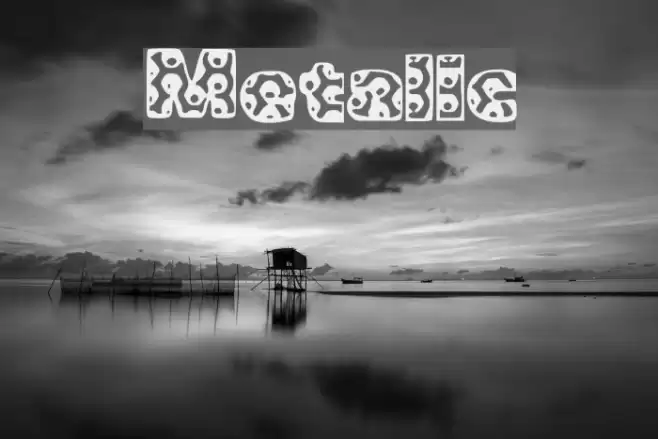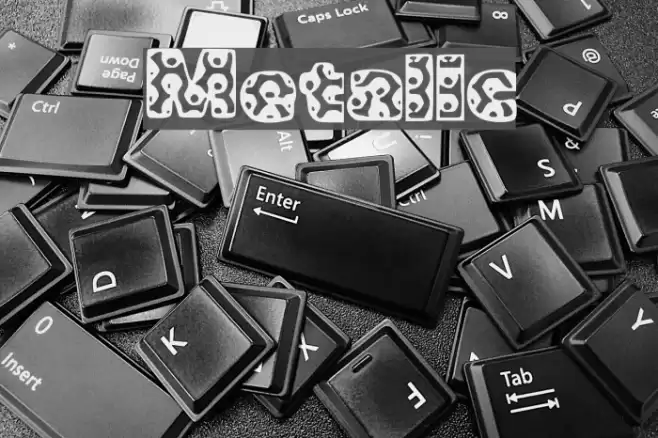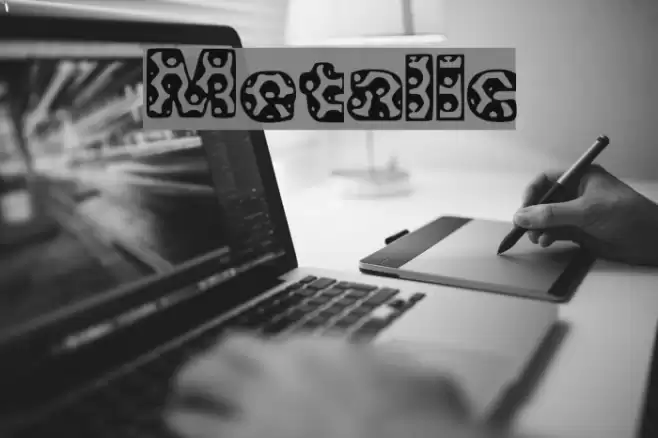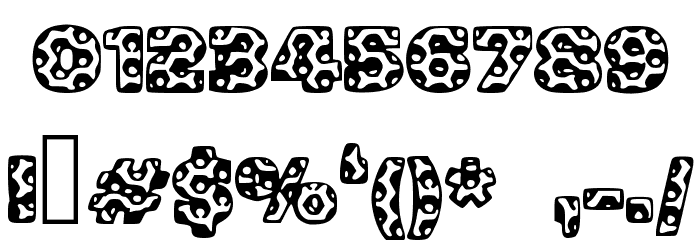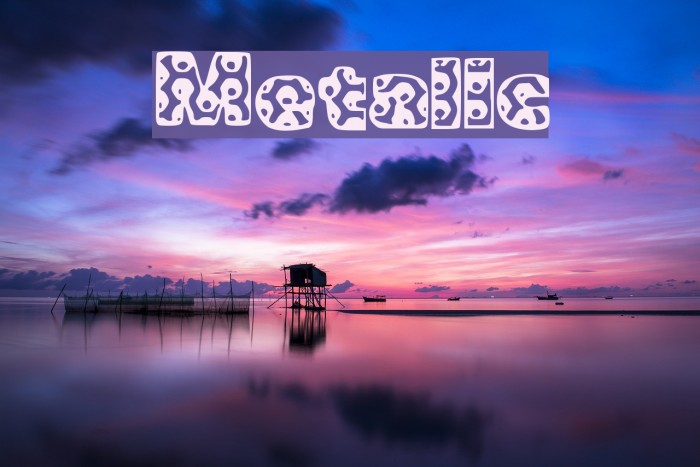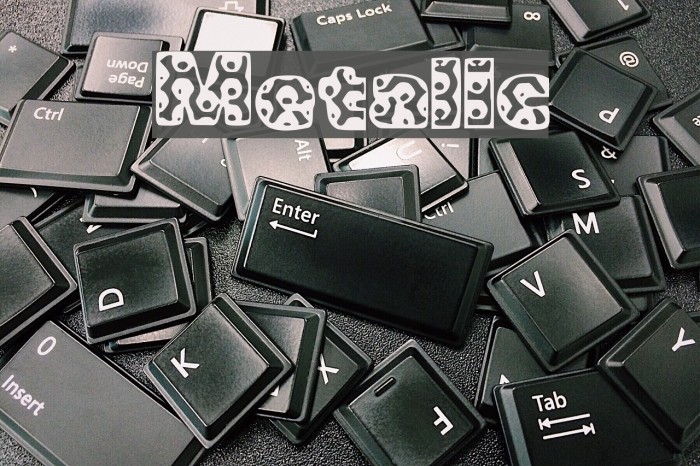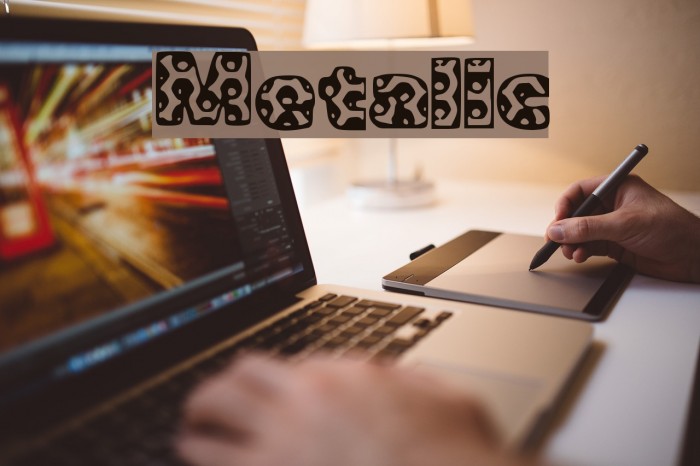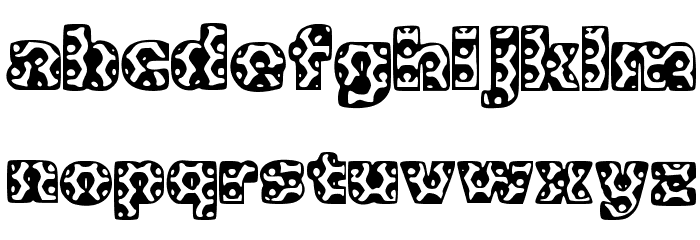
Metalic Font
Metalic Description
This font features a bold and playful design with a unique pattern resembling metallic textures. Each character is filled with intricate, abstract shapes that create a dynamic and eye-catching appearance. The letters are thick and robust, making them stand out with a strong presence. The font's decorative style is ideal for projects that require a touch of creativity and uniqueness. It maintains a consistent weight throughout, ensuring readability while adding an artistic flair. The overall design is both modern and whimsical, perfect for capturing attention in various creative applications.
A bold, decorative font with a metallic, patterned design from Decorative fonts.
- Proposed Projects: Ideal for posters, album covers, branding, and creative digital artwork.
- Overall Style: Modern, Decorative